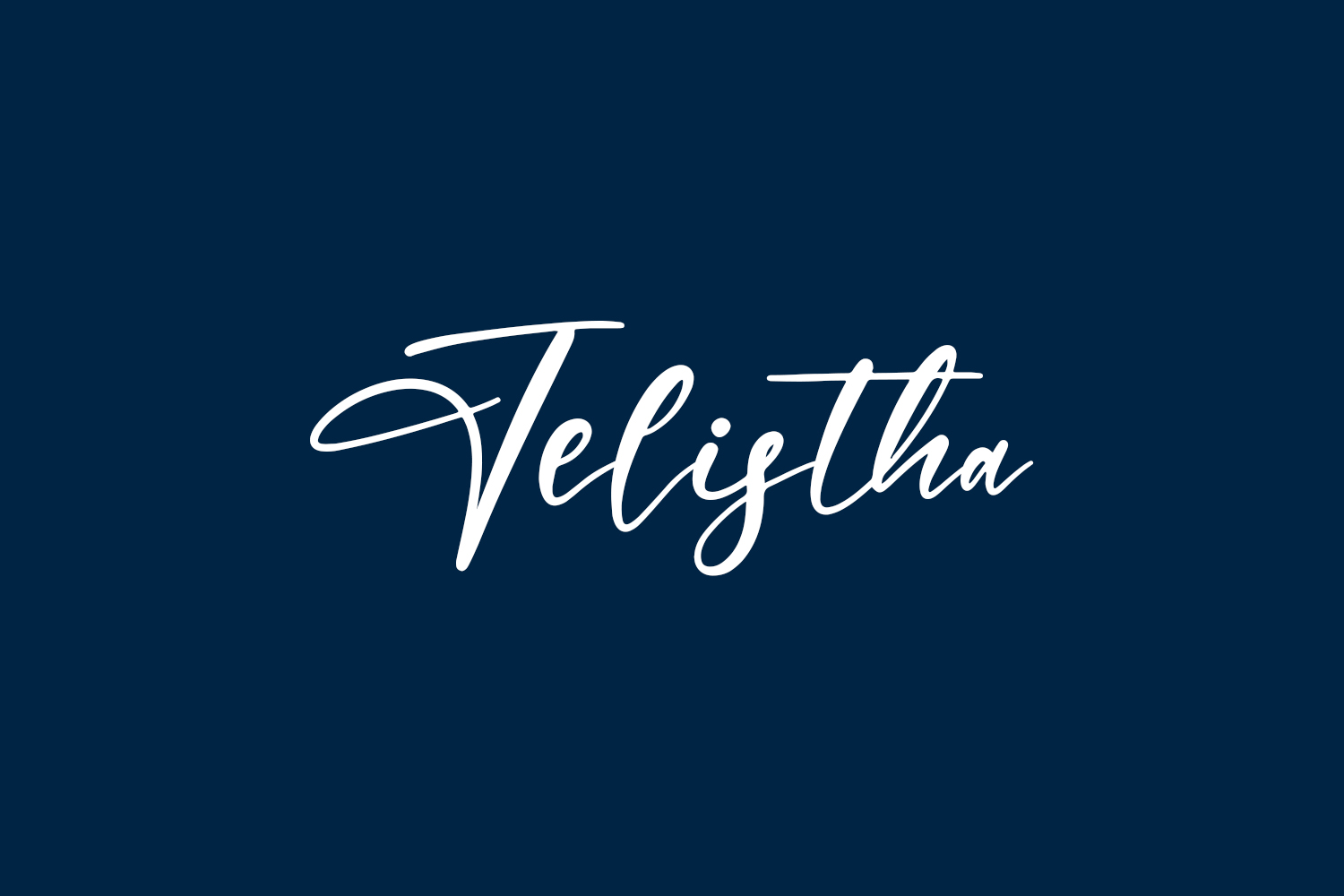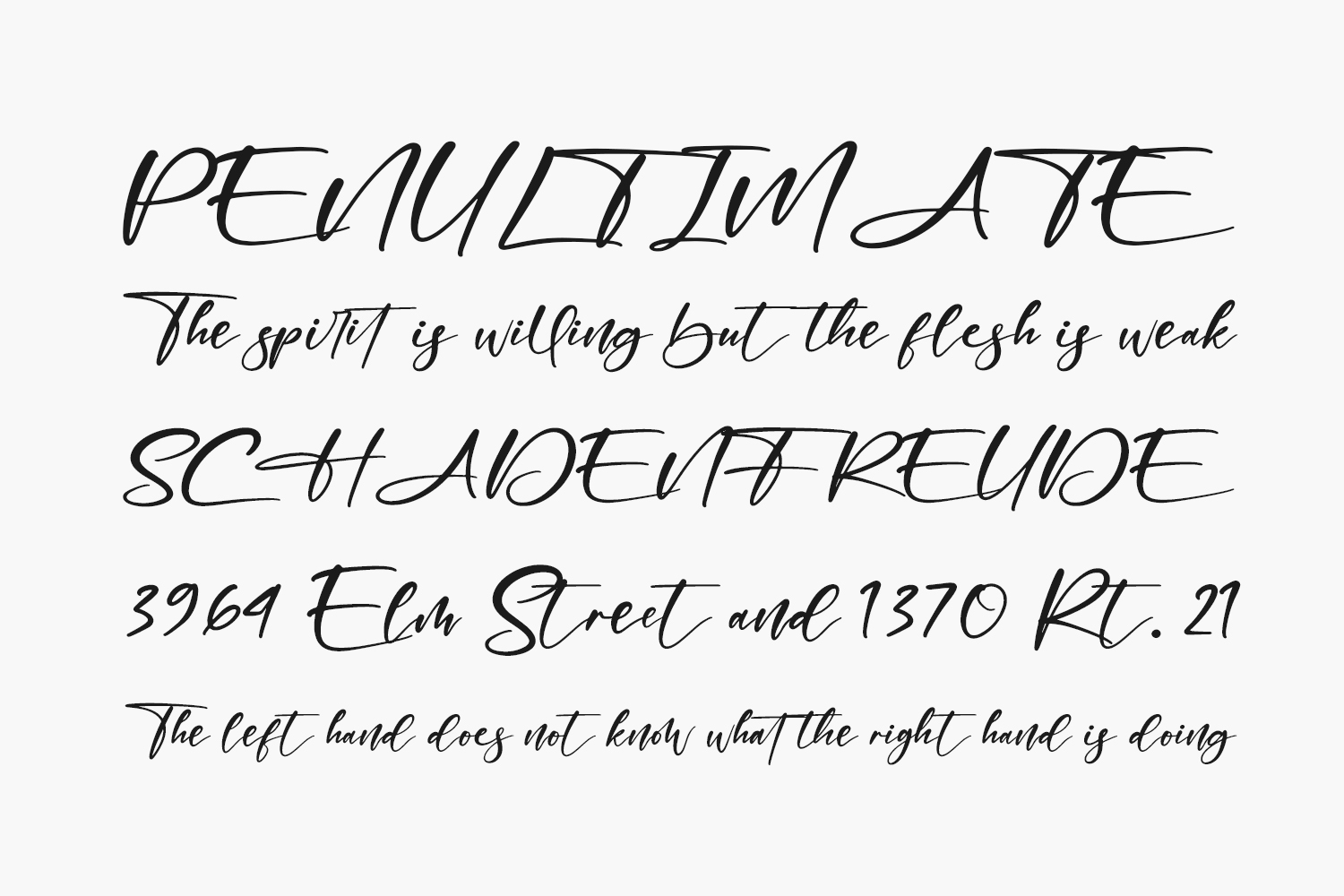
Jelistha Free Font is a modern handwritten font, suitable for any project such as logos, branding projects, homeware designs, product packaging, mugs, quotes, posters, shopping bags, t-shirts, book covers, name cards, invitation cards, greeting cards. Jelistha Free Font was designed by Letterena Studios and is free for personal use only. Please purchase the full version for commercial use.